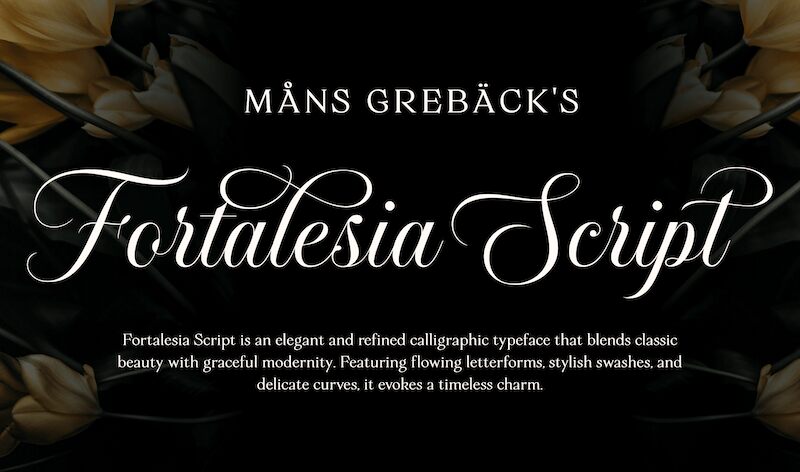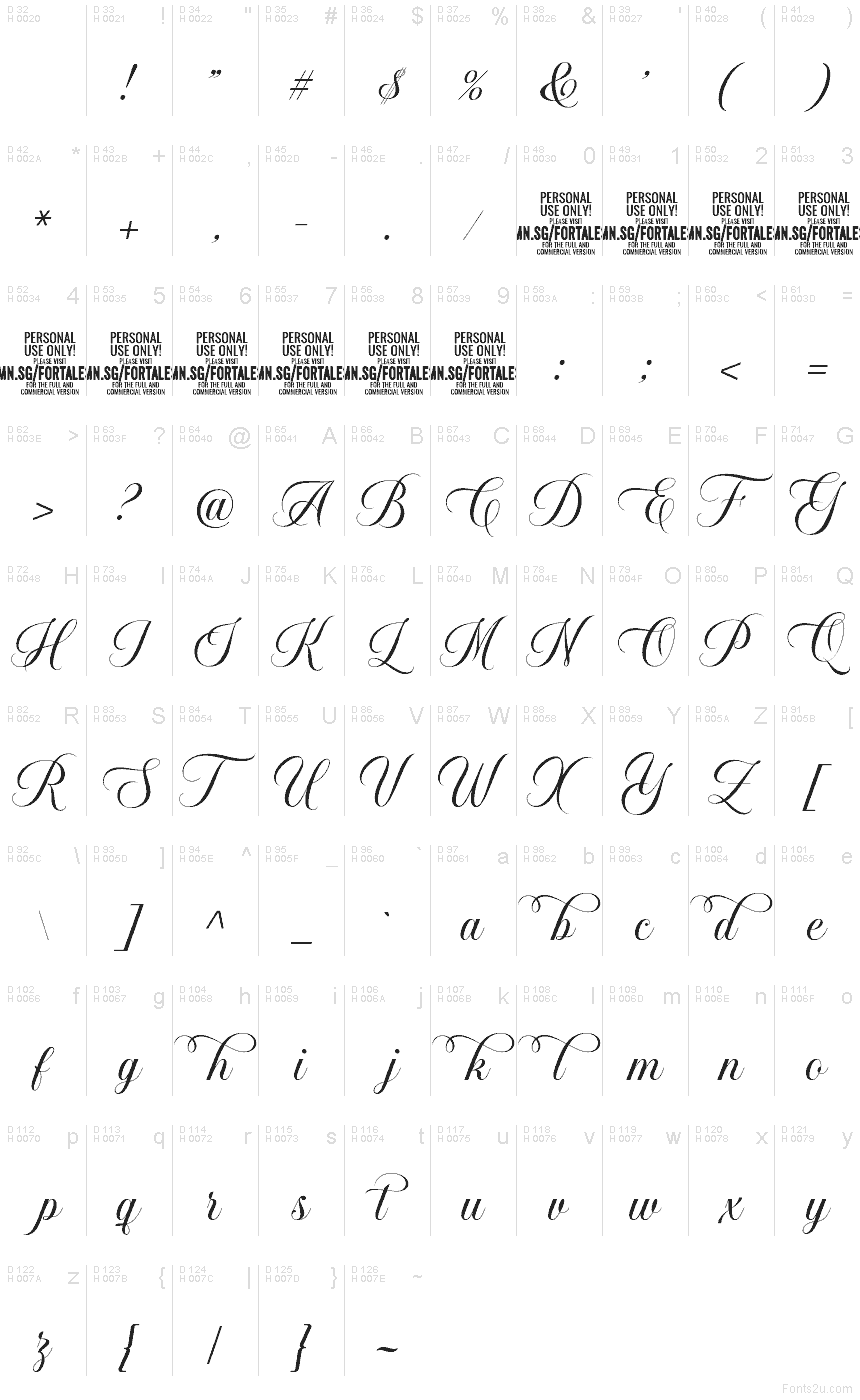
Fortalesia Script PERSONAL USE Regular
Fortalesia Script font by Mans Greback is a free calligraphy font. It solves a familiar problem: getting lavish flourishes without turning your headline into a tangle. High-contrast strokes glide from hairline to silky thick, while the spacing keeps names and short phrases readable and undeniably luxe, like fresh ink pulled by a sharp nib.
Using Fortalesia Script, you can elevate wedding invitations, boutique logos, wine or cosmetics packaging, certificates, menu headers, and elegant event signage. The flowing rhythm feels airy yet confident, so it shines on large display settings where swashes can breathe. Pair this free font with a quiet sans for body copy and let Fortalesia handle the spotlight.